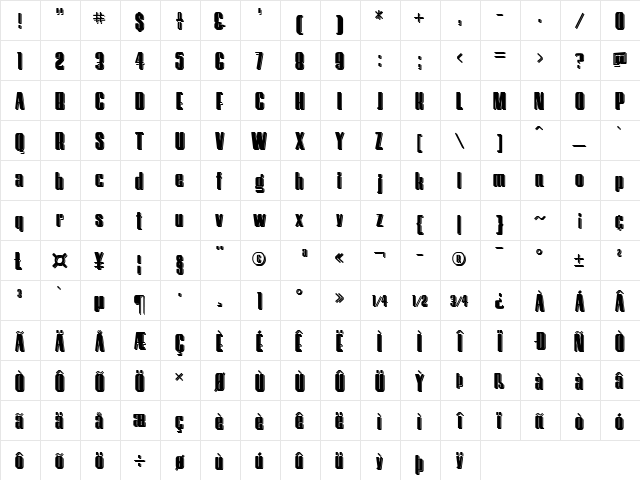
HostilShadow Regular
| Foundry | Paulo W, Intellecta Design |
Design Context for HostilShadow Typeface
HostilShadow is built around its visual character rather than neutral utility — its distinctive forms are designed to make an impression at display sizes.
Font Pairing: Pair with a clean neutral sans-serif for body copy to let HostilShadow's character lead without overwhelming the composition.
Pro Tip: Use HostilShadow exclusively at display sizes — it was designed to be seen, not read at length. Let a neutral companion handle body copy.